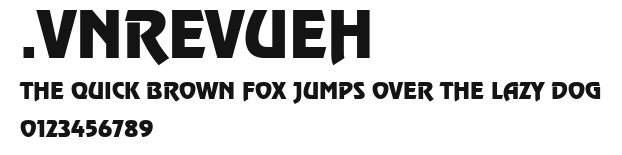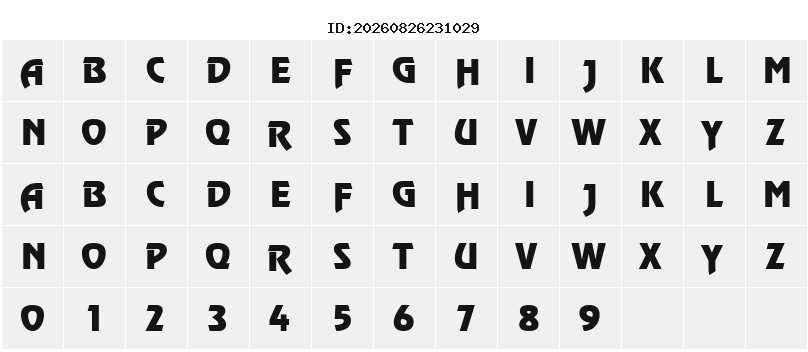
.VnRevueH Preview
• Font Name: .VnRevueH
• Full Font Name: .VnRevueH Medium
About .VnRevueH.ttf
.VnRevueH.ttf is a modern, elegant sans-serif font designed for ultimate readability and visual harmony. Perfect for branding, headlines, web design, and print materials.